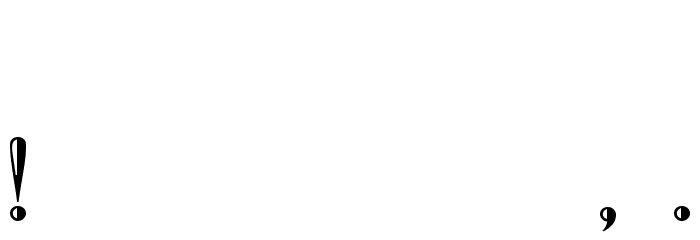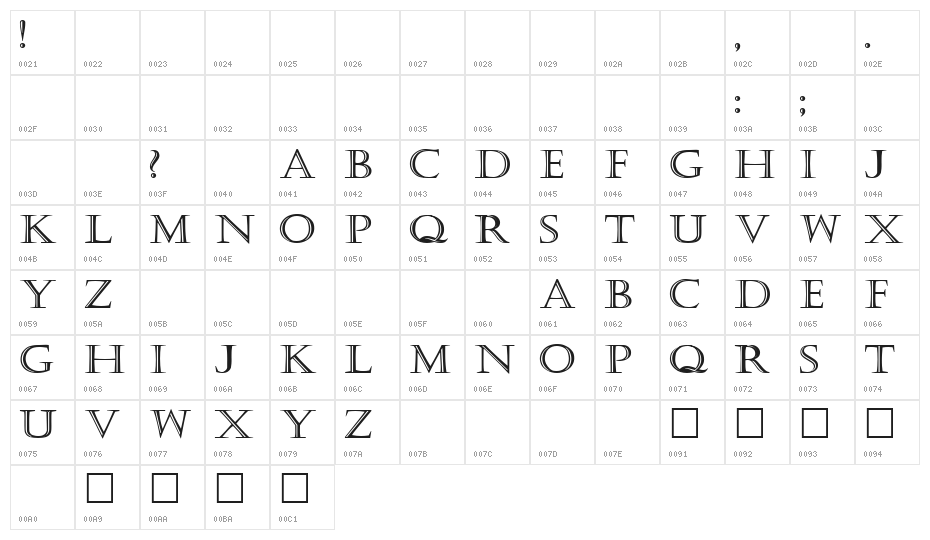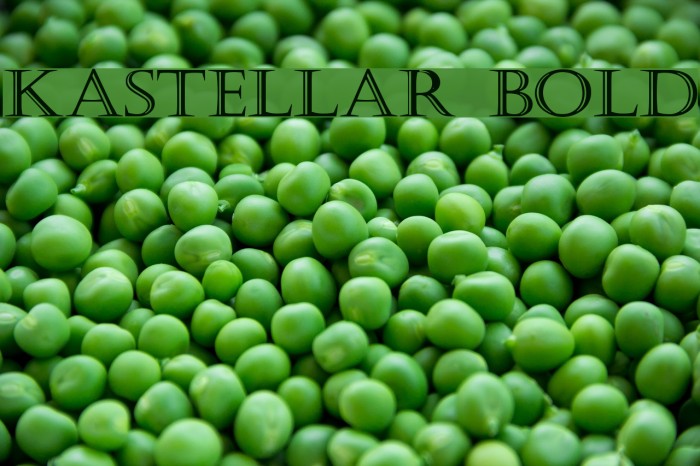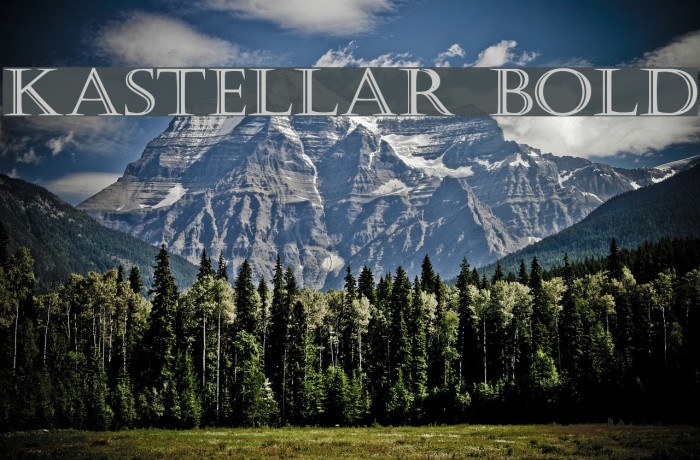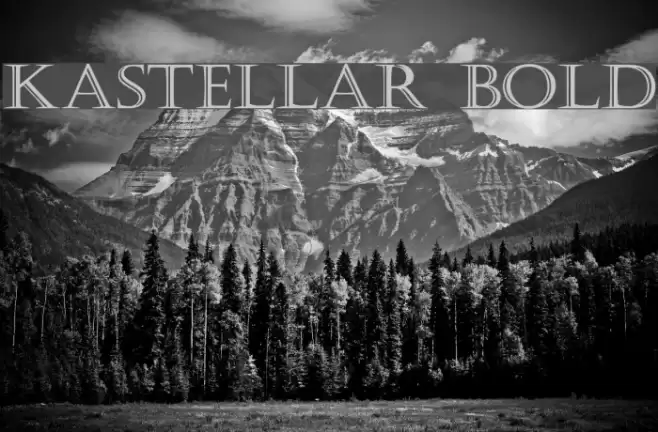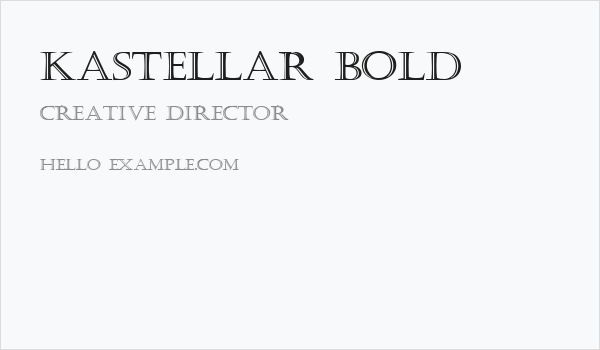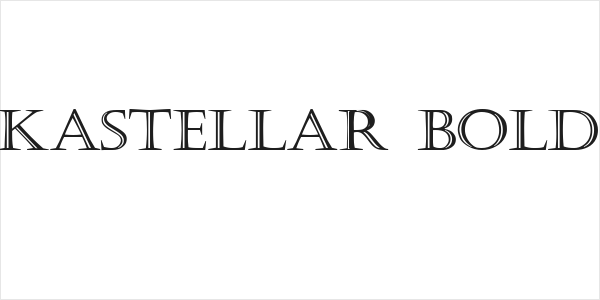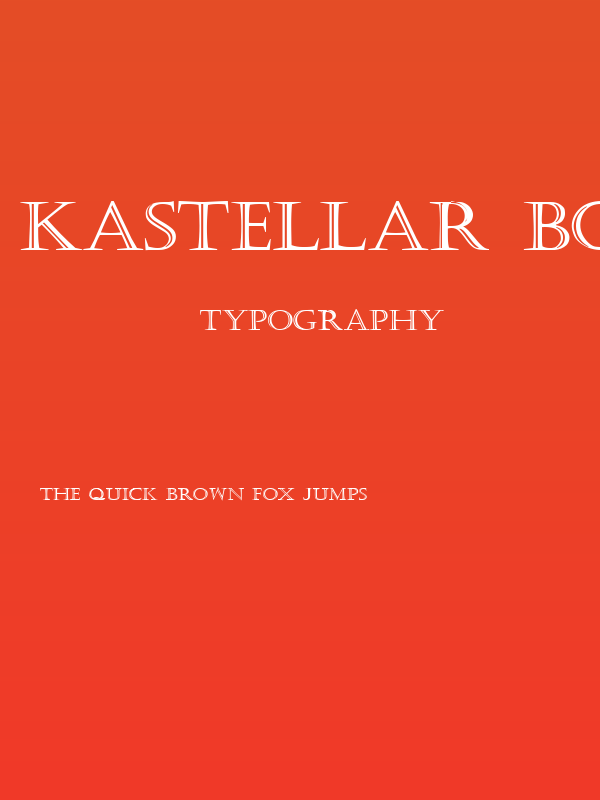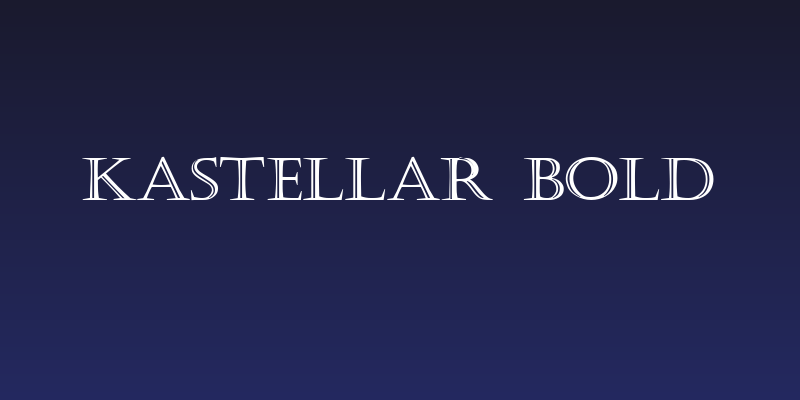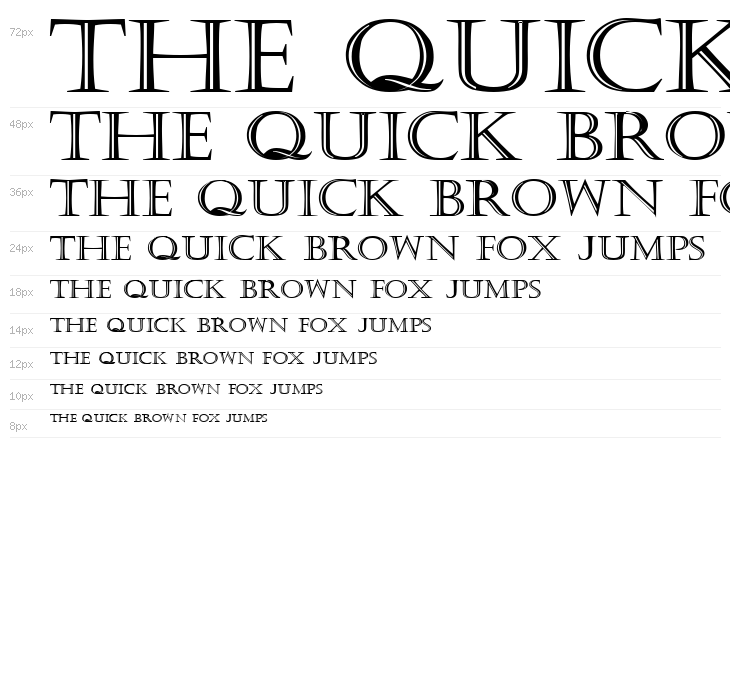
Kastellar Bold Font
Kastellar Bold Description
This font features a classic serif design with a bold and authoritative presence. The characters are sharply defined with high contrast between thick and thin strokes, giving it a sophisticated and elegant appearance. The serifs are pronounced and add a touch of traditional style, while the overall structure maintains a modern edge. The uppercase letters are particularly striking, with a sense of grandeur and formality. This font is ideal for projects that require a strong visual impact and a touch of elegance.
| Proposed Projects | Ideal for use in luxury branding, editorial headlines, formal invitations, and high-end product packaging. |